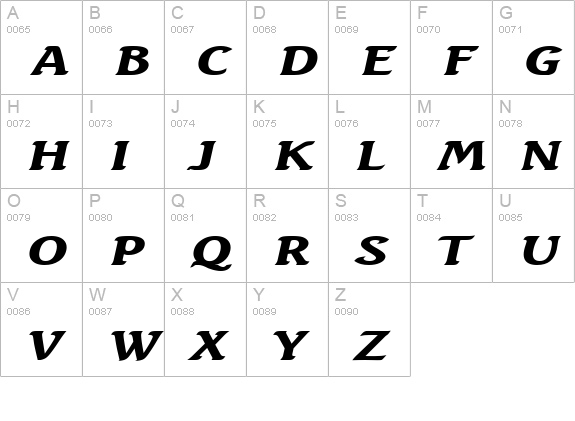
Beach Extended Bold Italic Font Details
Beach Extended Bold Italic is a strong, high-contrast, extended-width, italic variant in the Beach typeface family \xE2\x80\x94 well suited to headlines, attention-grabbing titles, and strong calls-to-action.